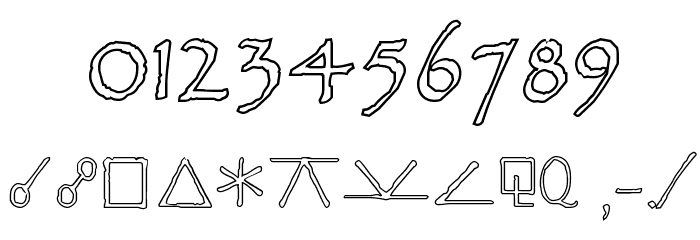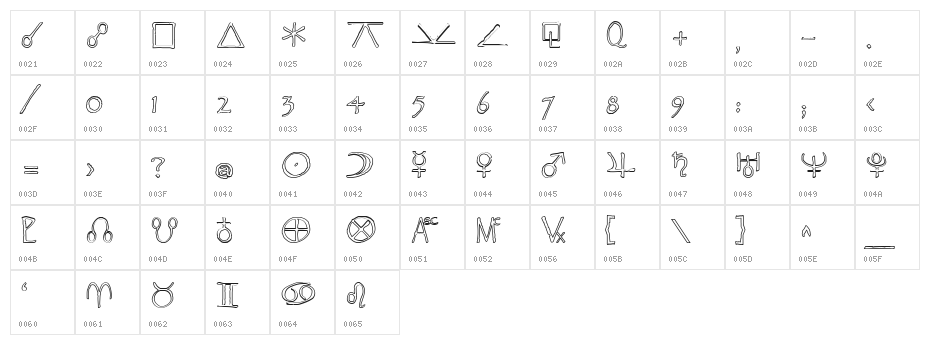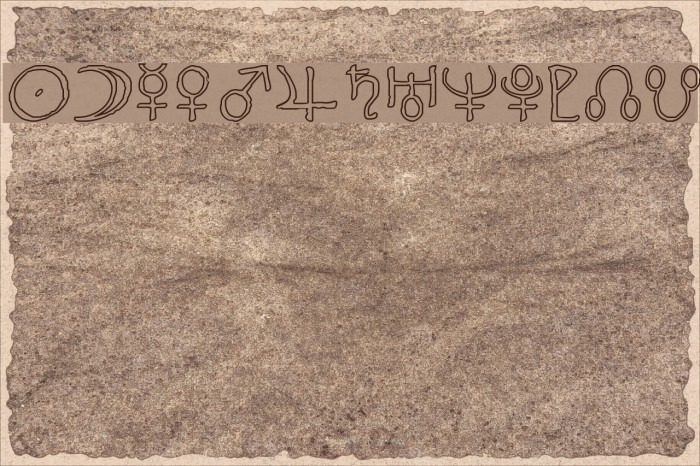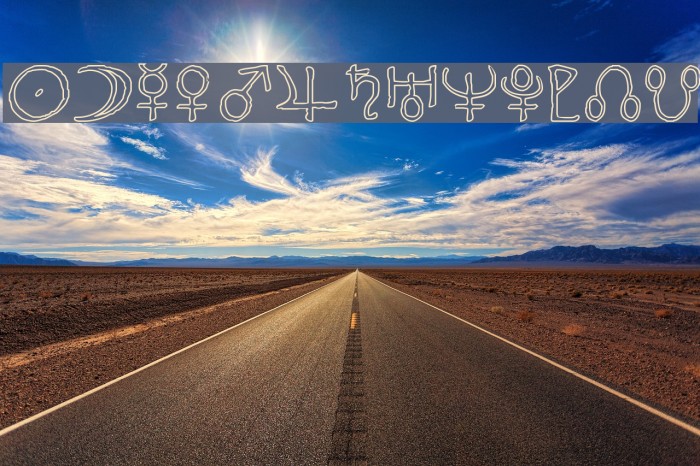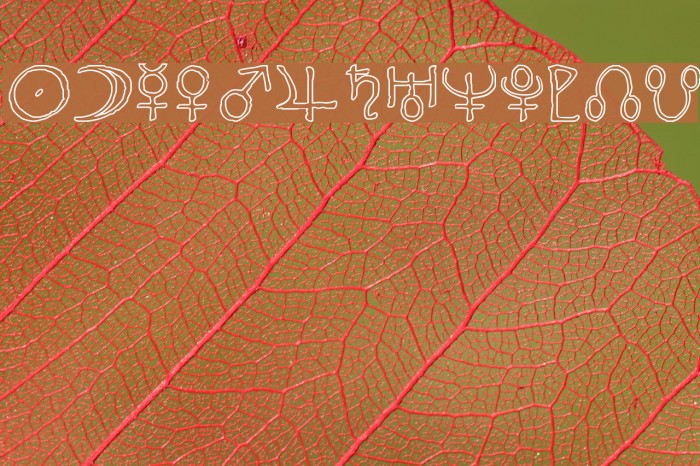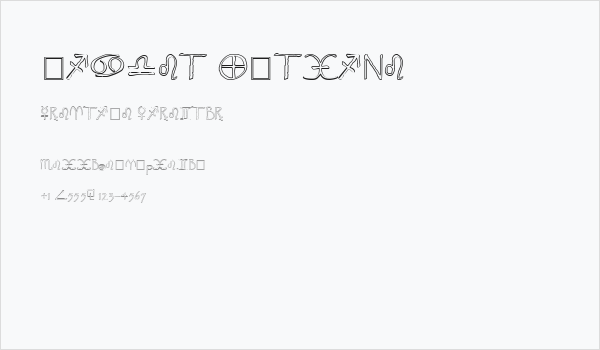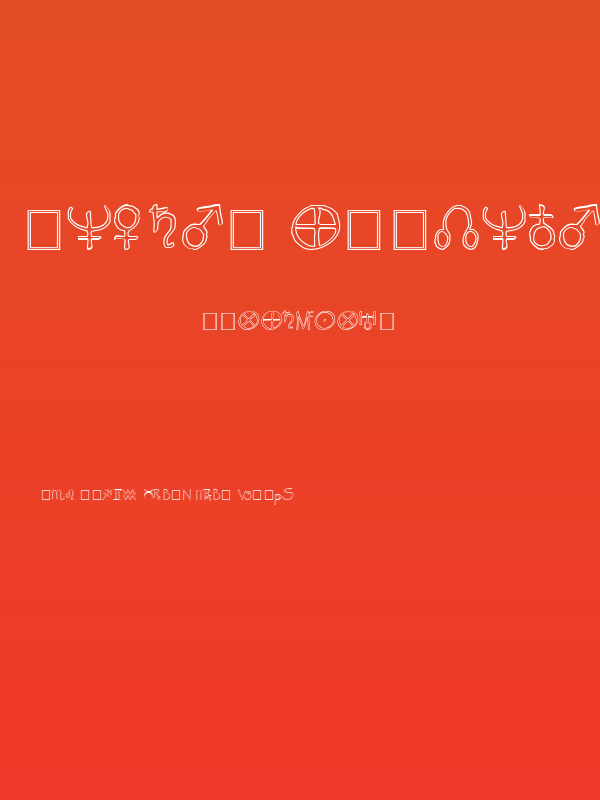
Widget Outline Font
Widget Outline Description
This font features a collection of unique symbols and glyphs that resemble astrological and mystical signs. The characters are outlined, giving them a sketch-like appearance. The design is highly decorative, with each symbol crafted to convey a sense of mystery and ancient wisdom. The font includes a variety of shapes, from circles and crosses to more complex geometric forms. The overall aesthetic is reminiscent of ancient scripts or alchemical symbols, making it ideal for projects that require a touch of the esoteric or arcane.
| Overall Style | Mystical, Ancient, Decorative |
| Use Case | Logos, Posters, Book Covers |
| Proposed Projects | Ideal for use in fantasy-themed projects, tarot card designs, mystical branding, or any creative work that requires an ancient or magical aesthetic. |